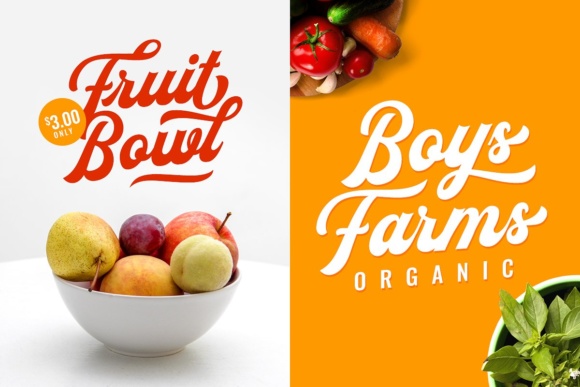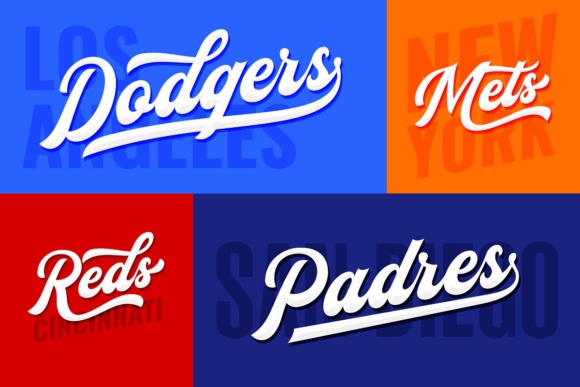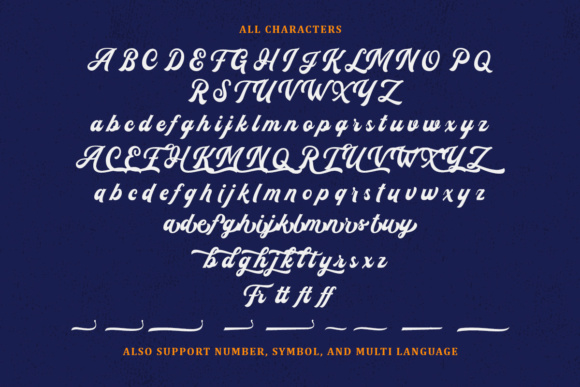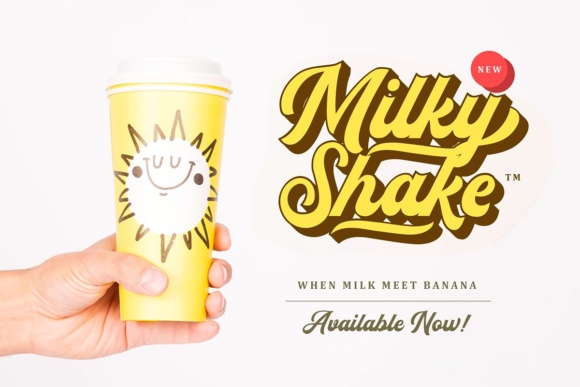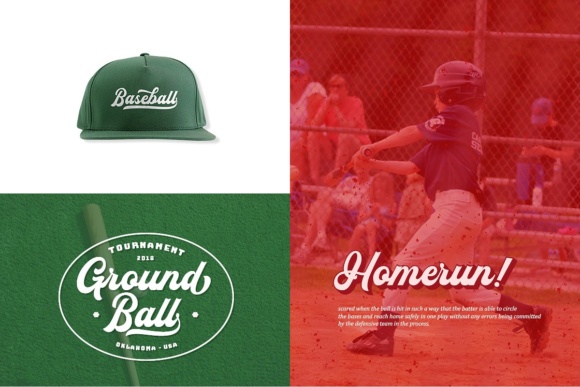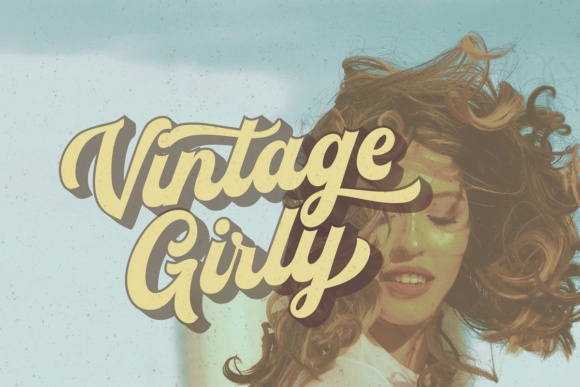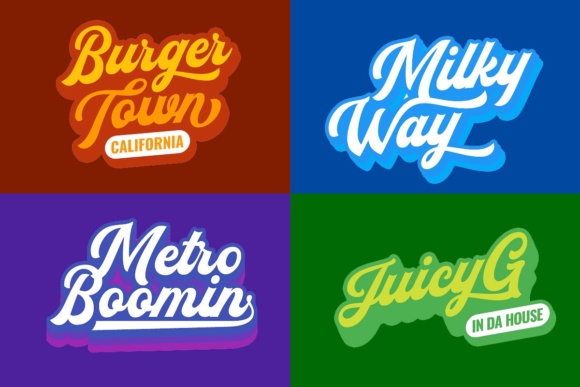
Flanders Script Font
About Flanders Script Font
Flanders is a bold and modern script that will fulfill your design needs for sporty themes, logotypes and much more!.The Flanders Shadow is a complementary font that allows you to create extrude/shadow effects in a snap without needing any graphic software tools!